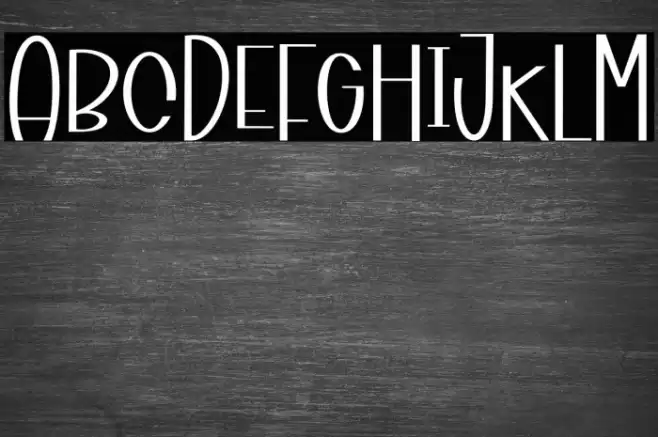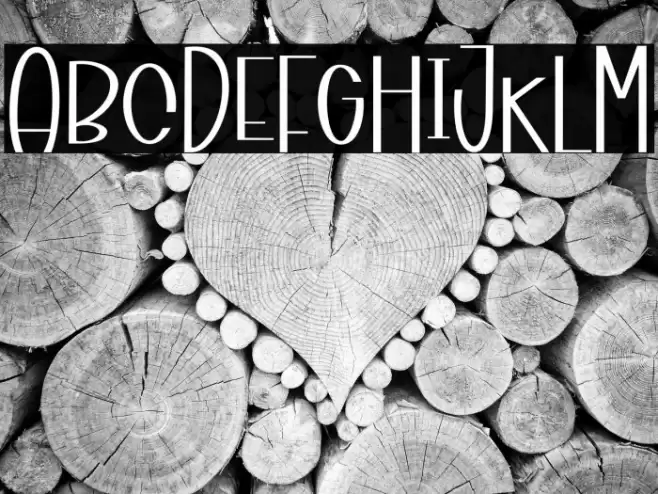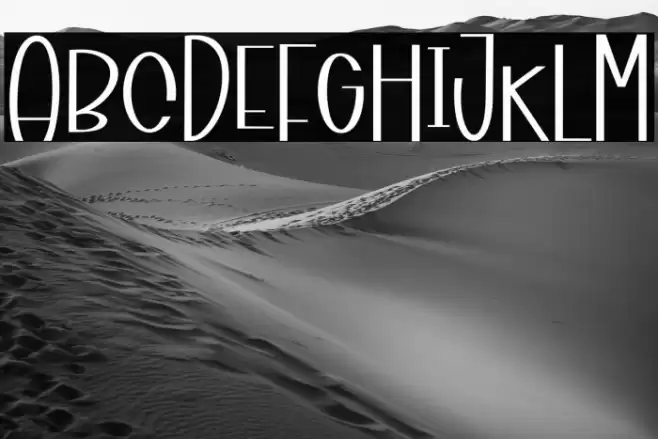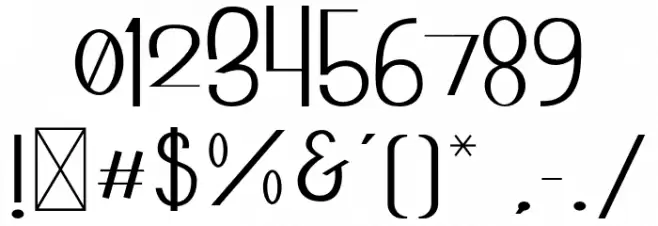
BrokefoldFunRegular Font
BrokefoldFunRegular Description
This font features a playful and quirky design with a distinctively tall and narrow structure. The characters exhibit a unique blend of geometric shapes and smooth curves, creating a sense of whimsy and modernity. Uppercase and lowercase letters maintain a consistent height, contributing to a uniform appearance. The numerals are equally stylized, with rounded edges and a slightly condensed form. Special characters are creatively designed, adding to the font's overall charm. The font's clean lines and artistic flair make it suitable for a variety of creative projects.
A playful, tall, and narrow font with geometric and smooth curves from Uncategorized fonts.
- Font: BrokefoldFunRegular
- Proposed Projects: Ideal for children's books, playful branding, creative posters, and modern invitations.
BrokefoldFunRegular UPPERCASE
BrokefoldFunRegular LOWERCASE
BrokefoldFunRegular OTHER CHARS